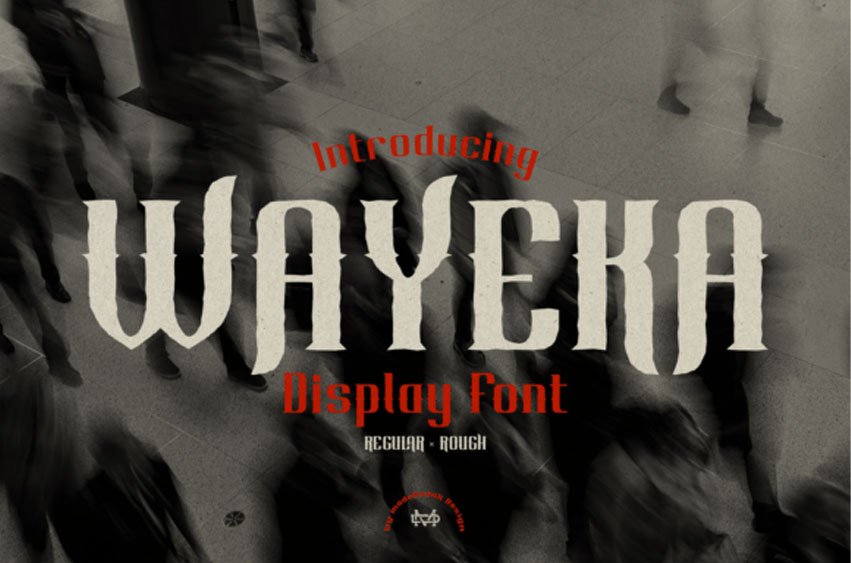
Wayeka Font
Wayeka Font is a strong and rugged display font that blends Gothic heritage with modern appeal.
With both regular and rough styles, it’s ideal for posters, album covers, fashion branding, tattoos, or any edgy design project looking to make a bold statement.